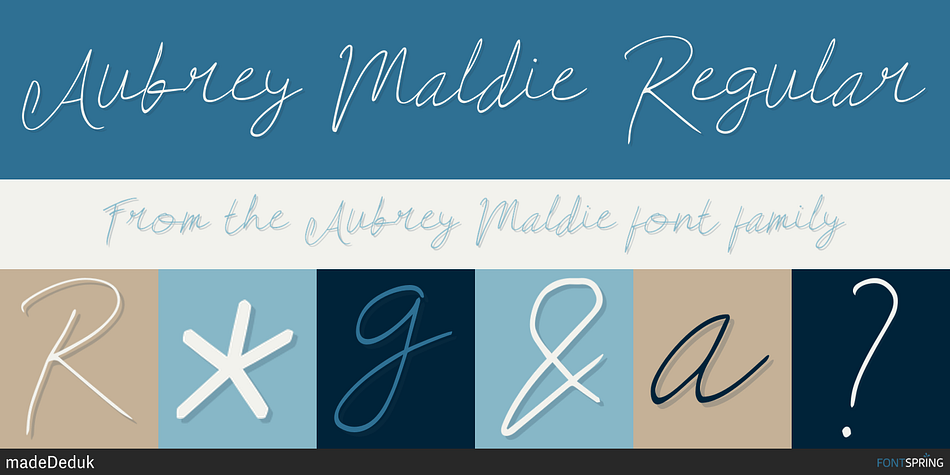
Aubrey Maldie Regular
Designed by Suandana Ipandemade, Aubrey Maldie is a hand drawn font family published by madeDeduk.
Really excited to introduce Aubrey Maddie is a realistic handwritten font to give an incredible impression for all your project design come with more than 75 ligatures and 100 Alternative to make everything look realistic handmade handwritten.
- Multilingual Support
- Ligature
- Alternative